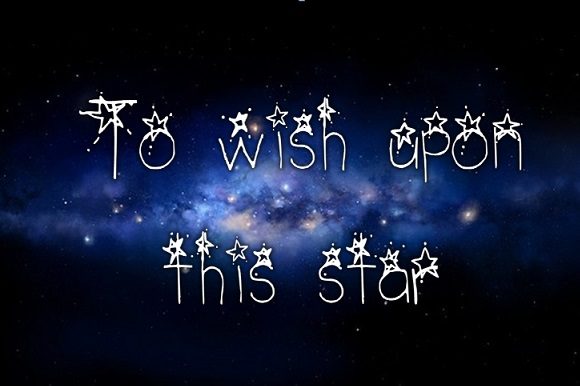
Introduction to Northern Stars Spaced Font
Northern Stars Spaced is a fun, light, starry lettered font with just a touch more spacing than the regular version of Northern Stars.
It will turn any creative project into a true stand out .
Northern Stars Spaced Font offers exceptional quality and versatility, making it a valuable addition to your design toolkit. Whether you’re creating for personal projects or commercial use, Northern Stars Spaced Font delivers professional results.